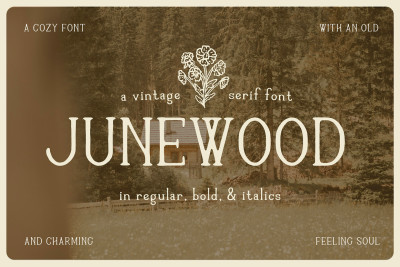
Junewood by Cindy Roaming Designs
Junewood by Cindy Roaming Designs Font
Junewood by Cindy Roaming Designs brings a confident, polished presence to any design, from business materials to creative campaigns.
Common applications include business cards, posters, web headers, advertising materials, book covers, and corporate identity systems.